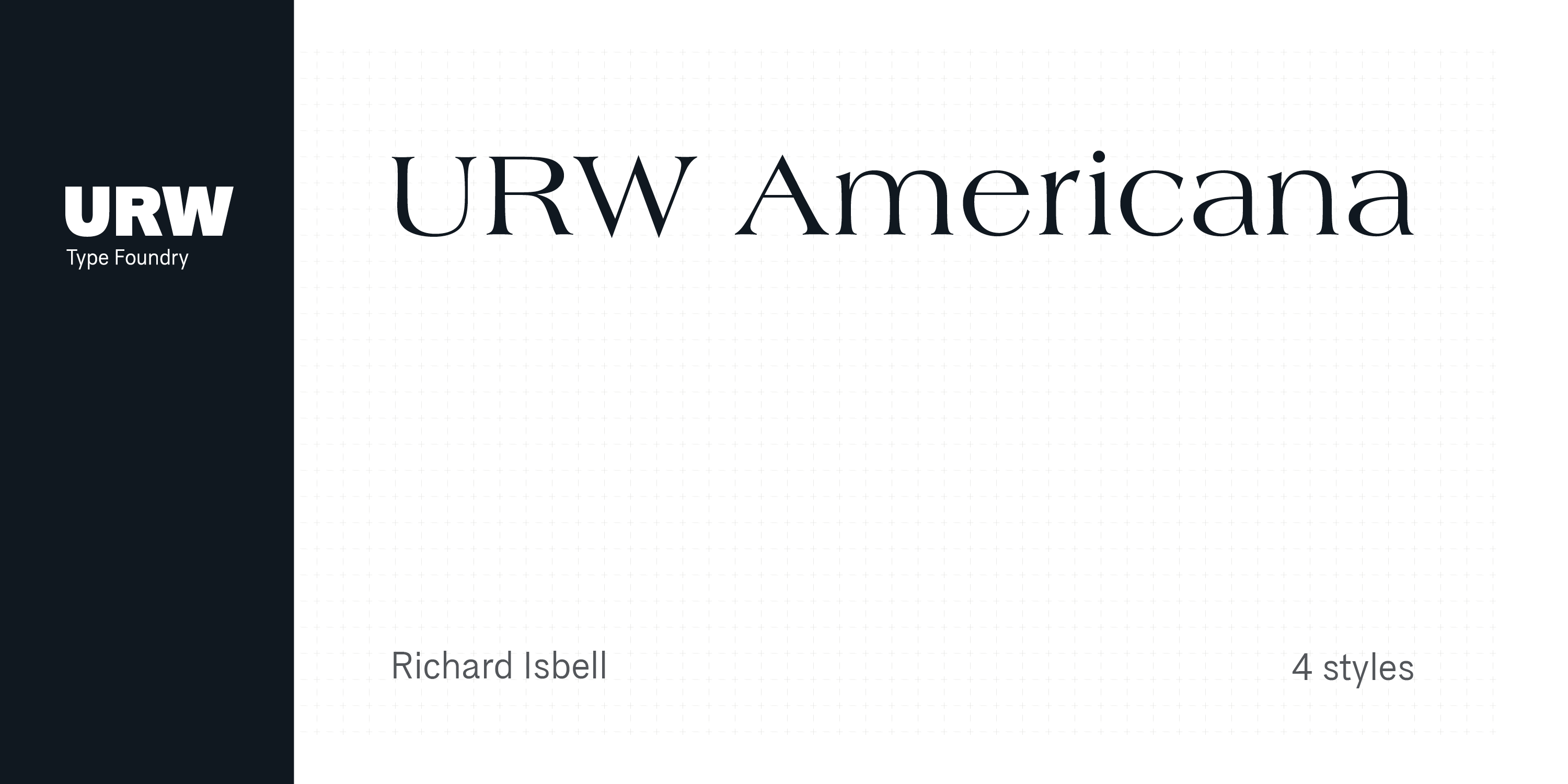
Americana Font is perfect for patriotic designs, vintage branding, historical documents, retro advertising, government publications, memorial designs, traditional signage, and classic American-themed projects.
What makes Americana Font exciting is its distinctive character that embodies classic American typography traditions with bold, confident letterforms that evoke strength and heritage. This timeless typeface features strong serifs and robust construction that commands respect while maintaining excellent readability, making it ideal for designs requiring authoritative presence and traditional appeal.
The Americana Font family includes Regular, Bold, and Extra Bold weights, each preserving the characteristic strength and dignified appearance that define this iconic typeface's patriotic spirit and enduring design legacy.
Americana Font Free Download offers designers access to a typeface that captures the essence of American typographic heritage. This distinguished serif font combines historical authenticity with contemporary functionality, making it perfect for projects celebrating American culture, values, and traditions. The font's bold character and confident stance make it ideal for memorial inscriptions, governmental communications, and ceremonial applications where dignity and respect are paramount. Whether creating historical documentaries, patriotic campaigns, or traditional business materials, this font delivers the gravitas and cultural resonance that connects with American audiences. Its timeless design ensures longevity in brand applications while its strong visual presence guarantees impact across all communication formats and design contexts.